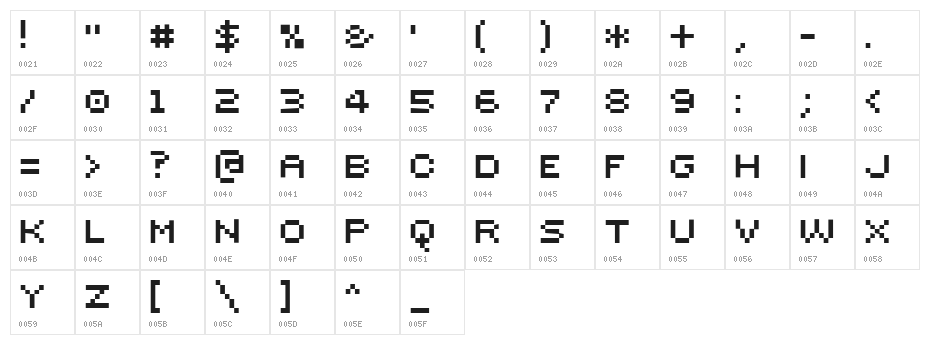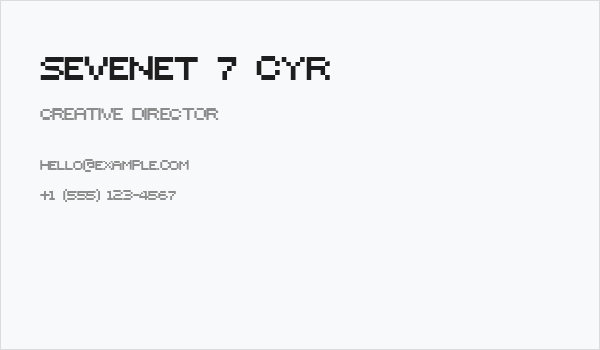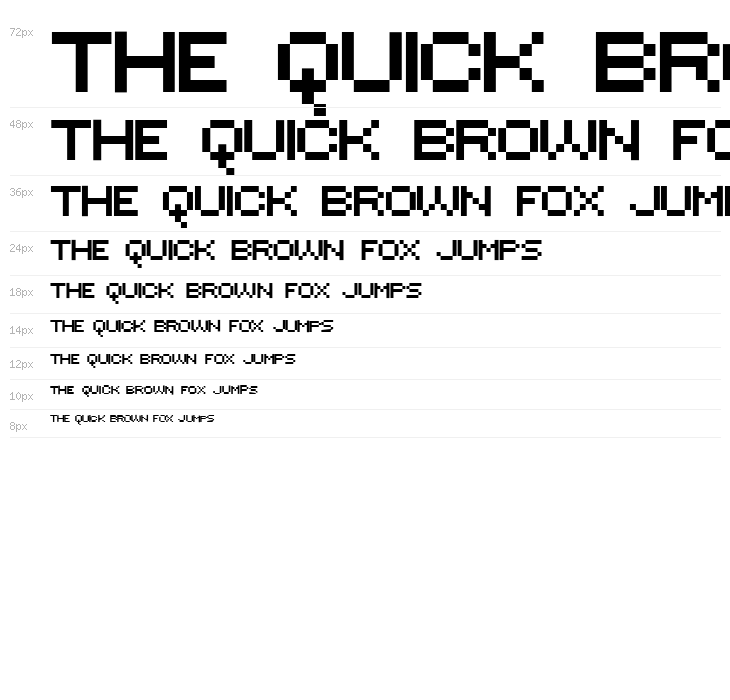
Sevenet 7 Cyr Font
Sevenet 7 Cyr Description
This font features a pixelated, blocky design reminiscent of early digital displays and retro video games. Each character is composed of square pixels, giving it a distinctly digital and geometric appearance. The uppercase and lowercase letters maintain a consistent height, contributing to a uniform look. The numerals and special characters follow the same pixelated style, ensuring cohesion across all glyphs. This font's design is straightforward, with no curves or embellishments, emphasizing a minimalist and tech-inspired aesthetic.
| Overall Style | Retro, Digital |
| Use Case | Headlines, Logos, Digital displays |
| Proposed Projects | Ideal for retro-themed designs, video game graphics, digital art projects, and tech-related branding. |